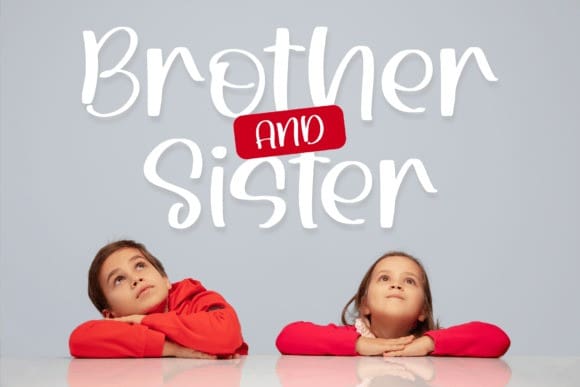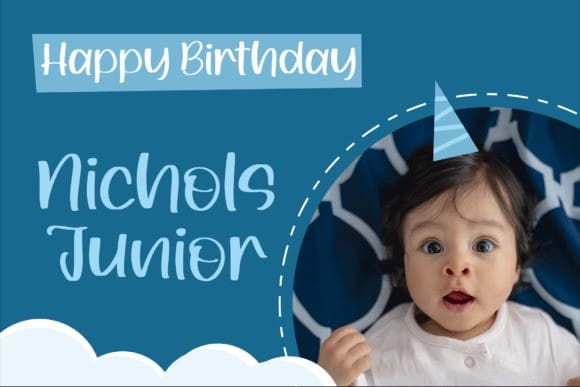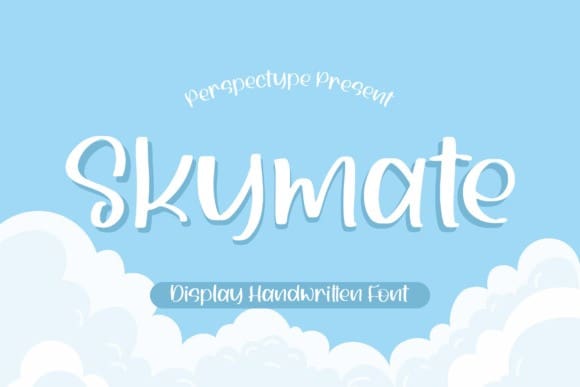
Skymate Font
Skymate Font is a fun and friendly handwritten font. Whether you’re using it for crafts, digital design, presentations, or making greeting cards, this font has the potential to become your favorite go-to font, no matter the occasion!